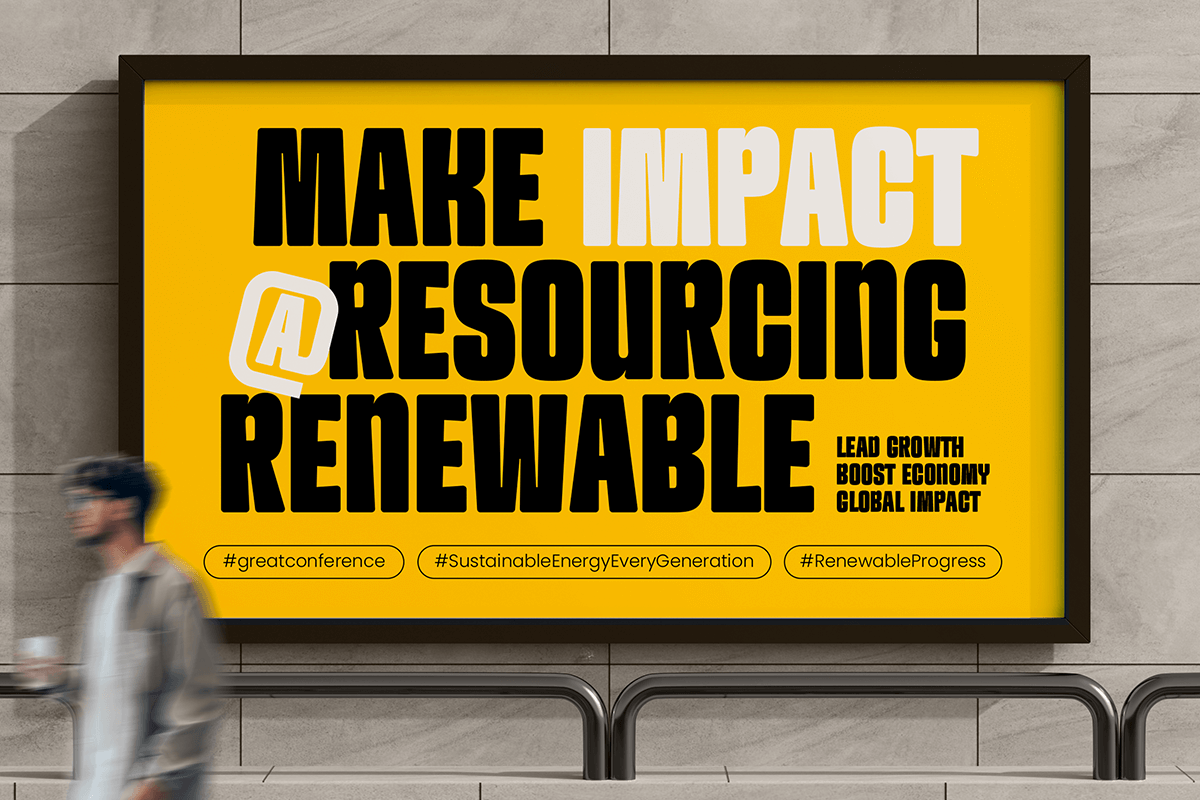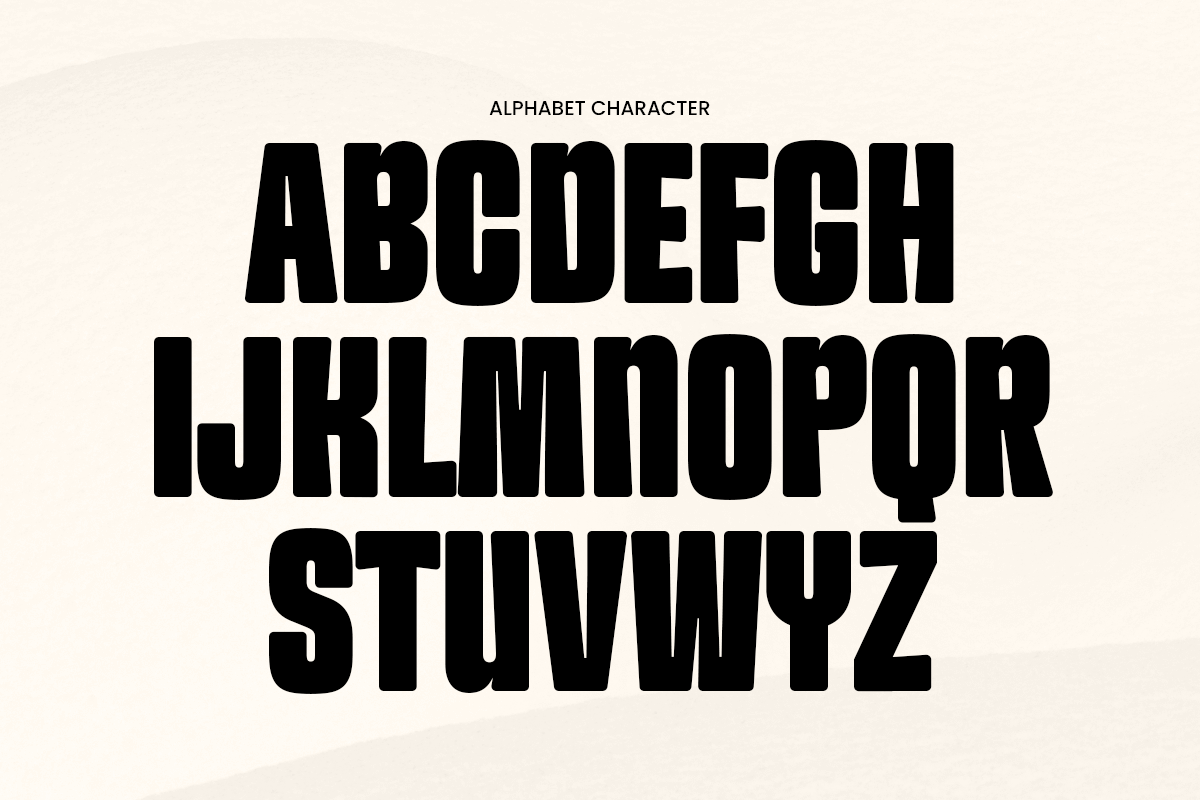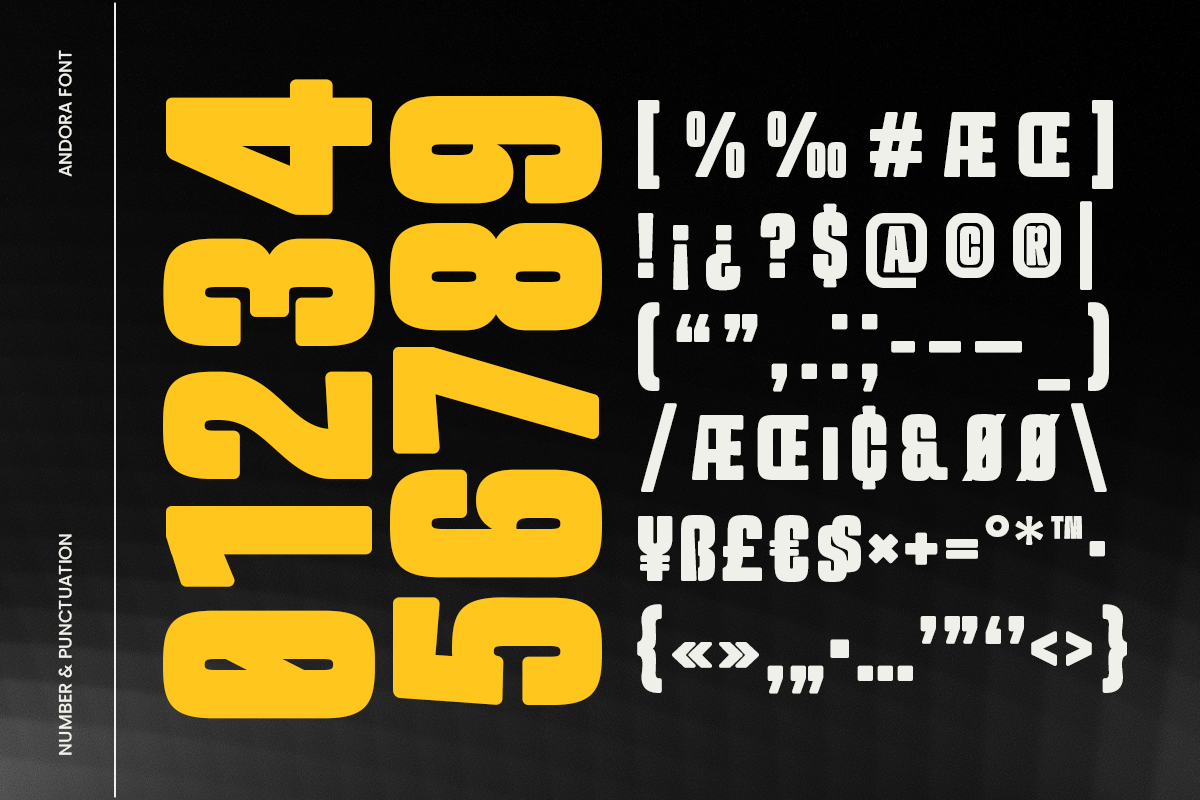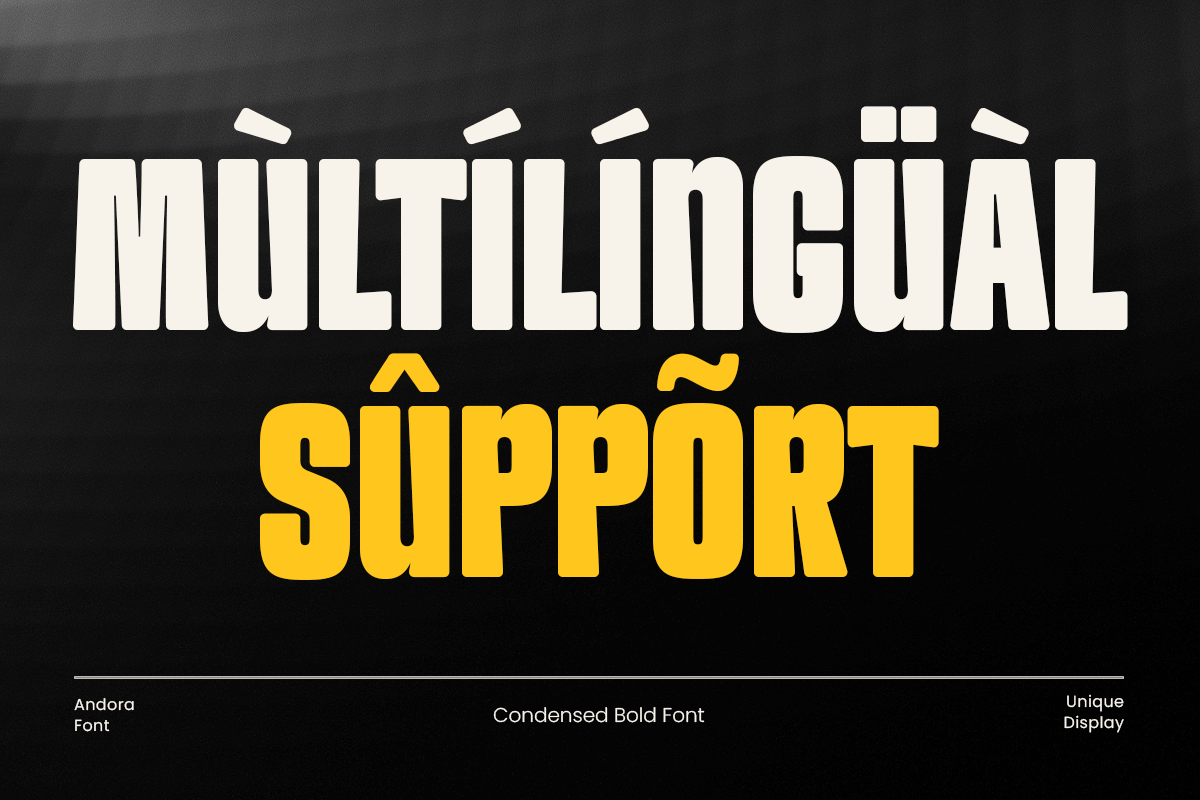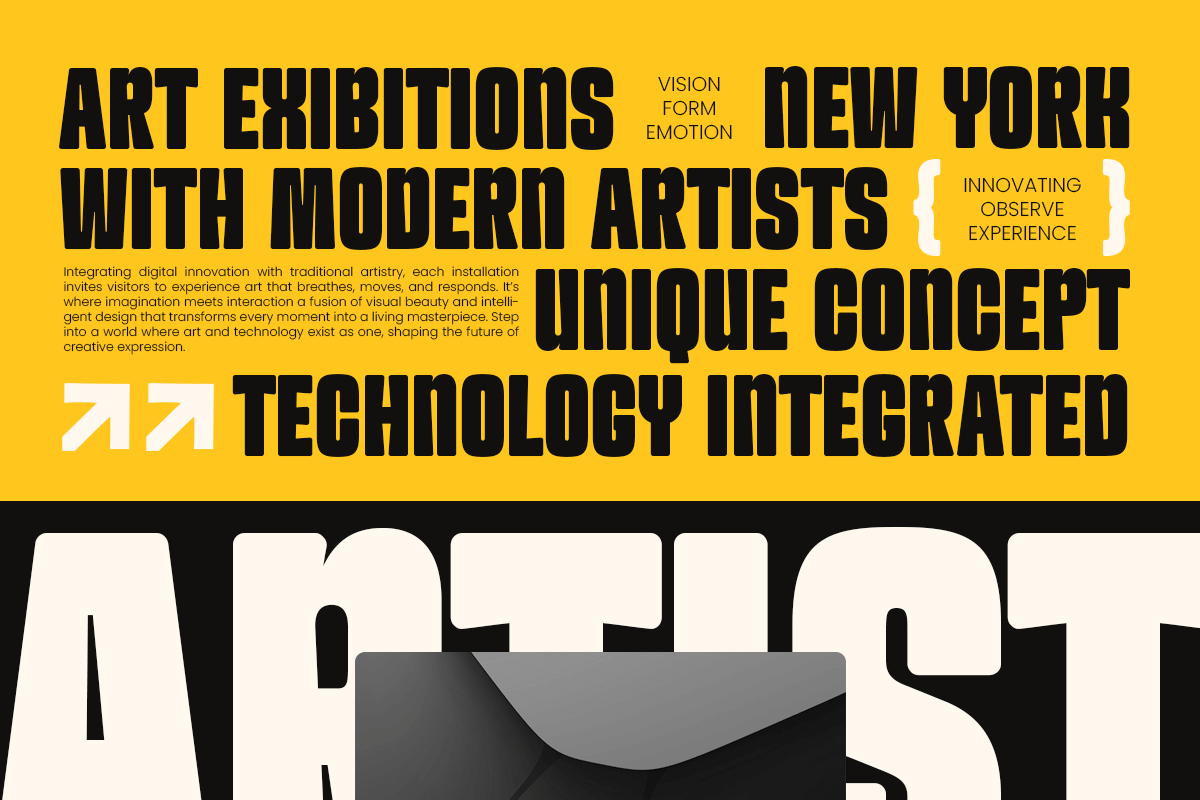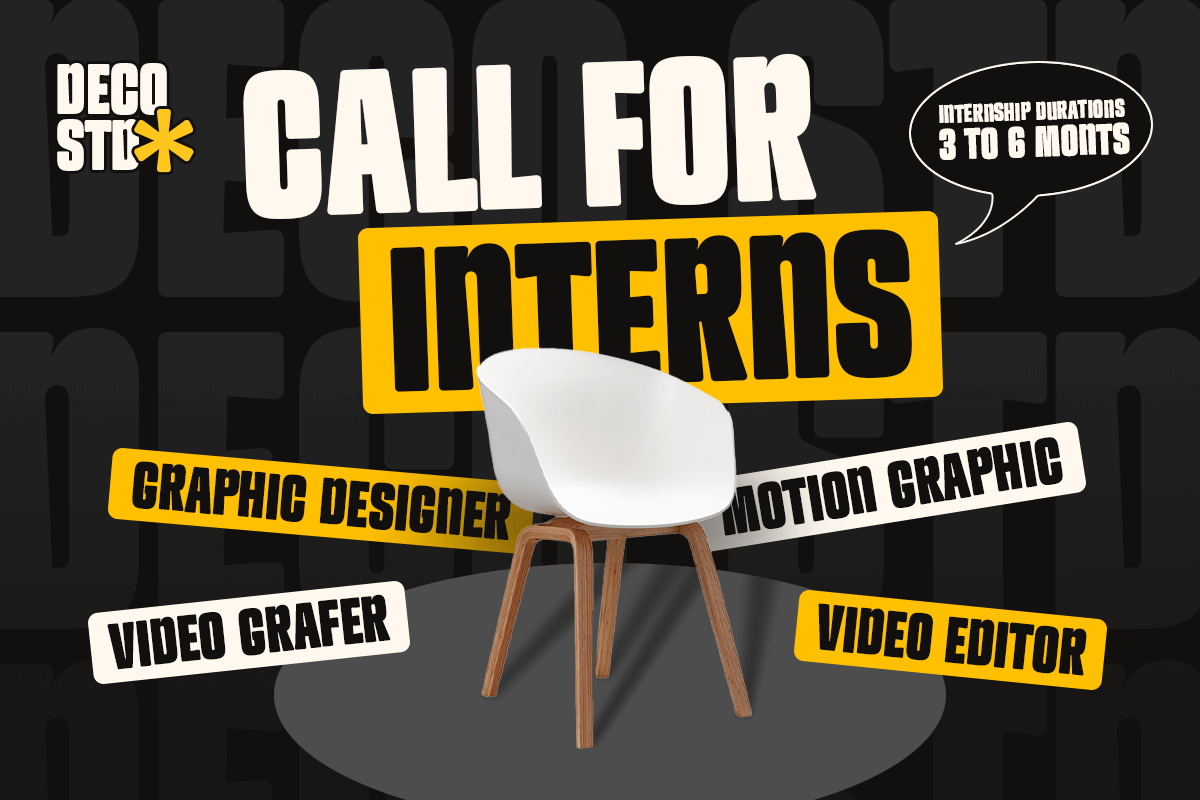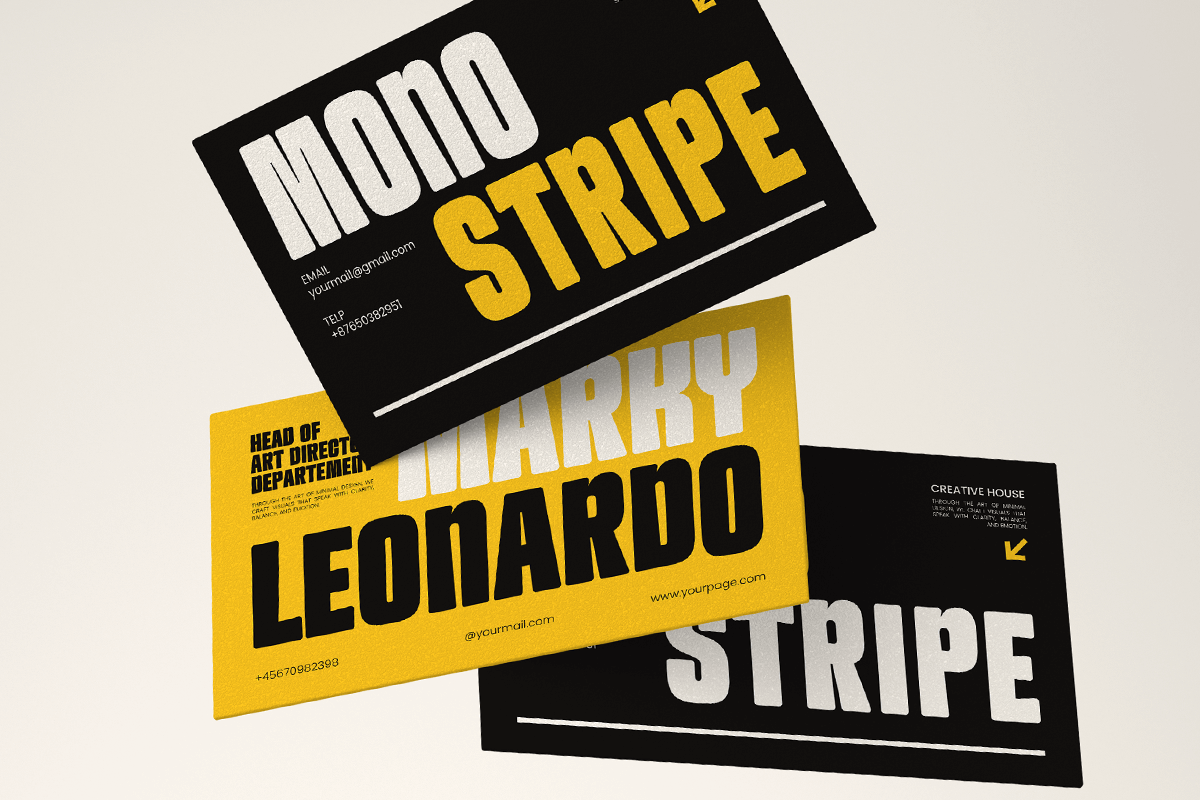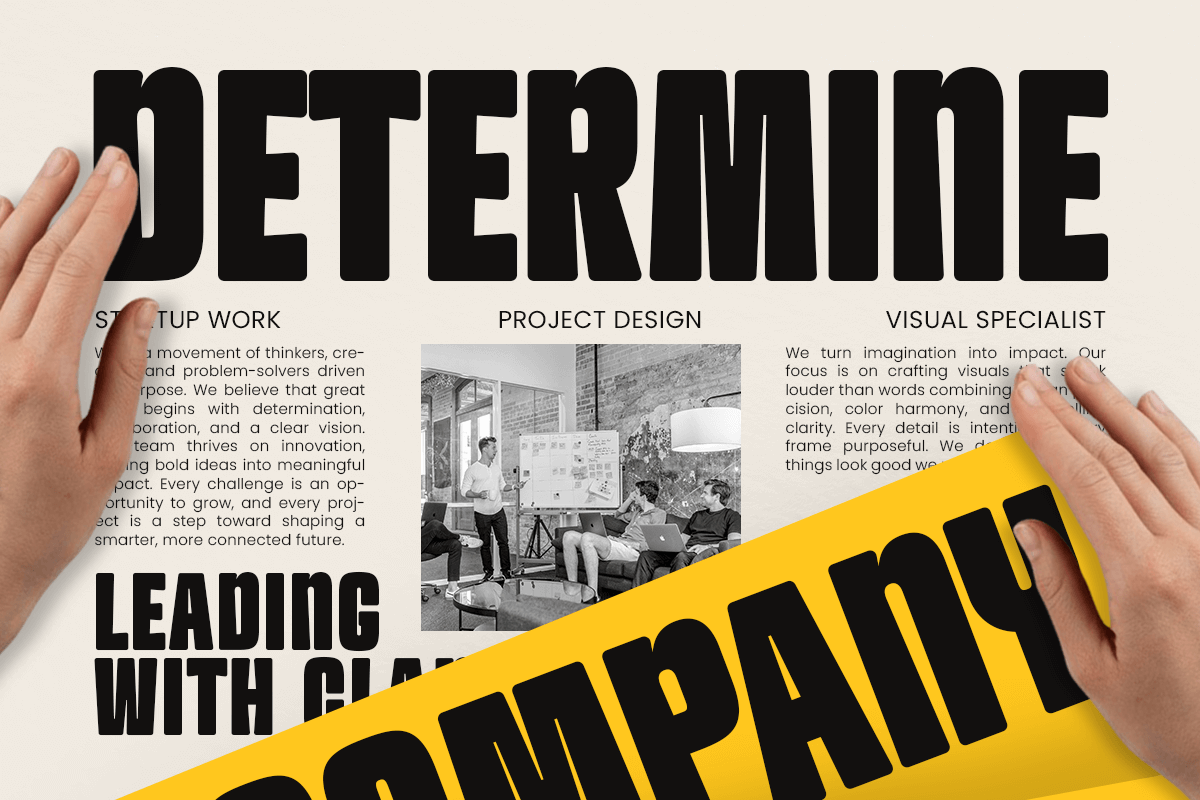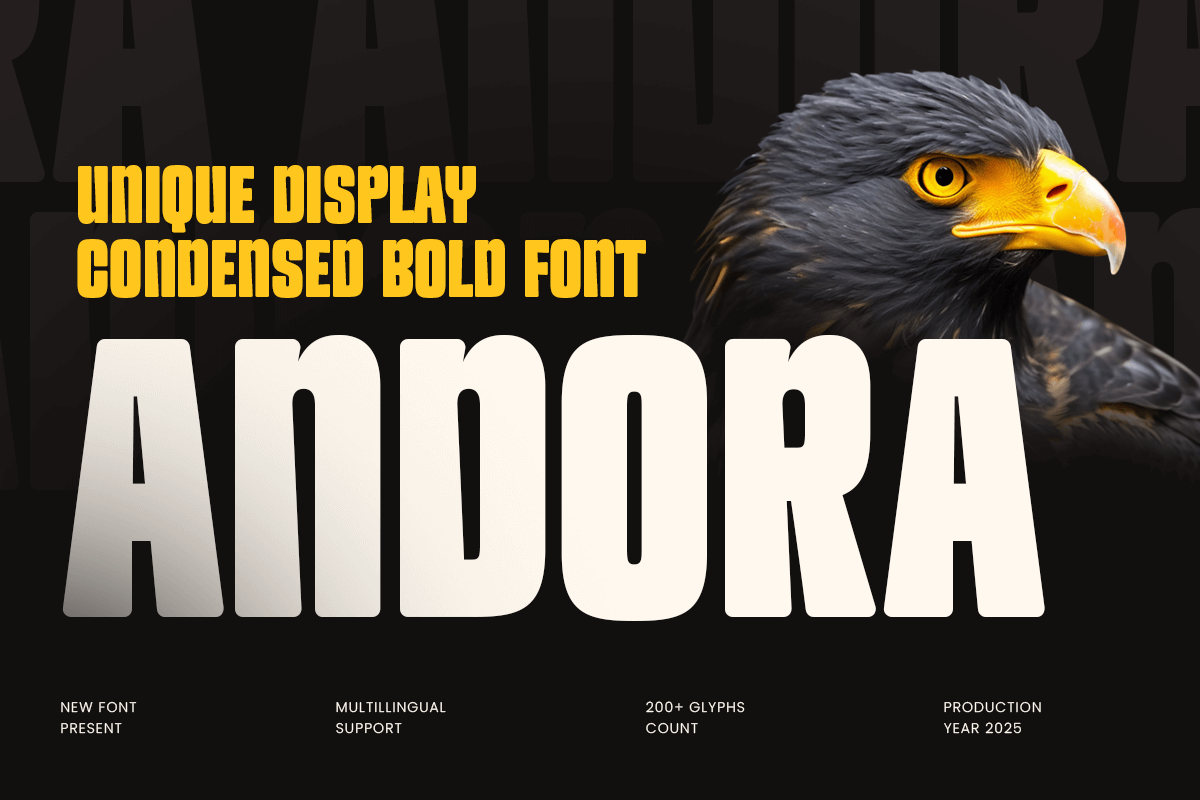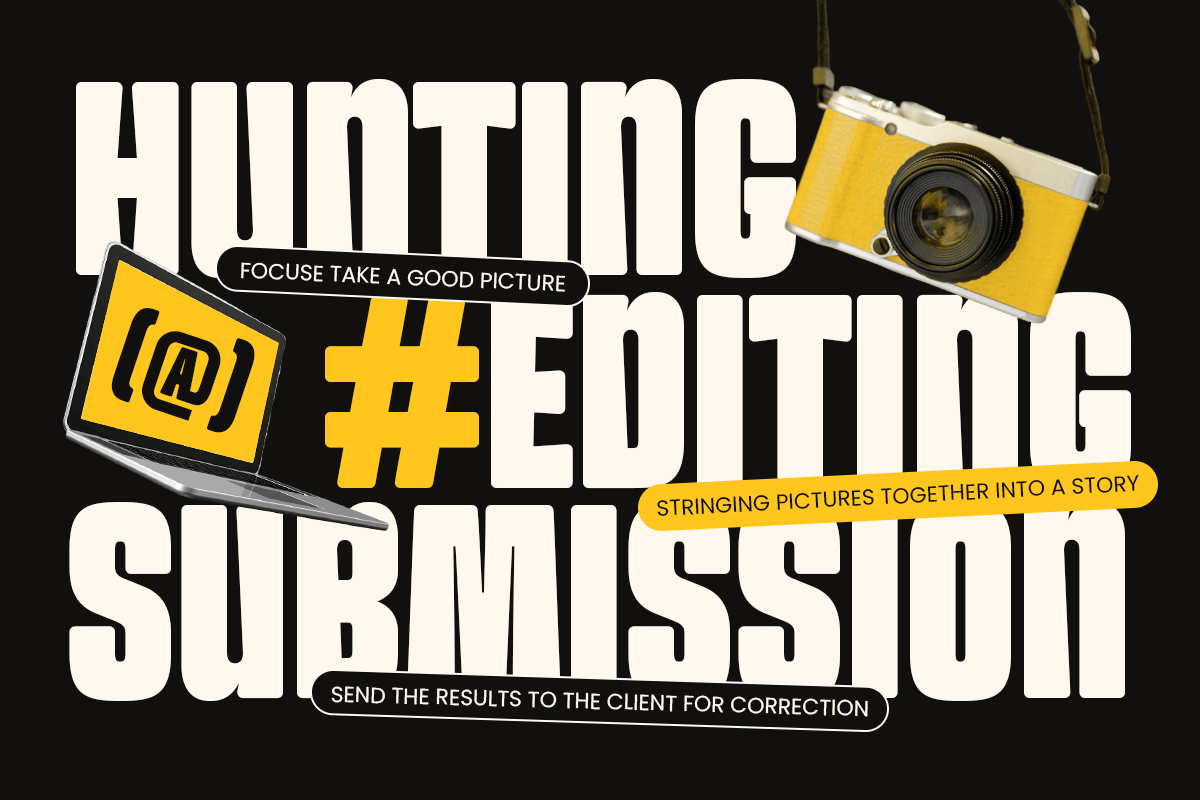
Andora - Unique Condensed Bold Font
Andora – Unique Display Condensed Bold Font
Andora is a striking condensed display font crafted with bold, modern aesthetics to enhance high–impact visual design. Its unique letter shapes, tight width, and powerful structure make Andora perfect for headlines, posters, logos, sports graphics, editorial layouts, and branding that demands immediate attention.
Designed with sharp precision and a strong visual rhythm, Andora delivers maximum readability even in compact spaces. The bold condensed form helps elevate minimalist designs while maintaining a memorable and dynamic character—ideal for creative professionals seeking a standout display style.
Andora – Unique Display Condensed Bold Font Features:
* Bold condensed display style with unique character forms
* Perfect for headlines, posters, logos, and branding
* Uppercase, lowercase, numerals, and punctuation included
* Strong visual weight with clean, modern construction
* Great for impactful and space-efficient typography
Create powerful and unforgettable visuals with Andora – the bold condensed font built for standout design.